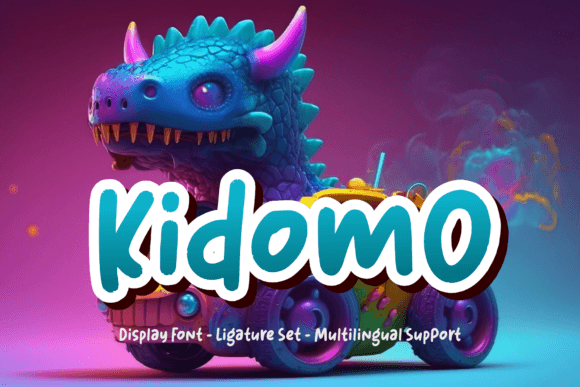
Embark on a whimsical journey with Kidomo, the enchanting display font crafted to captivate young hearts and ignite vibrant designs. This font is a symphony of joy, bursting with playful and cheerful nuances that mirror the essence of childhood.
Kidomo invites you to embrace the boundless creativity of kids, transforming your designs into magical realms where imagination thrives. With its unique and charming character, this font is a treasure trove of possibilities, allowing you to craft designs that are both playfully inviting and visually striking.
Let Kidomo be your guide as you create designs that transport your audience to a world of wonder and delight. Whether it's a children's book, a playful logo, or an enchanting website, Kidomo will infuse your work with a captivating allure that speaks directly to young minds.
With Kidomo, you hold the key to unlocking a universe of imagination, where colors dance, laughter echoes, and dreams take flight. Embrace the magic and watch as your designs blossom into enchanting creations that leave a lasting impression on all who behold them.